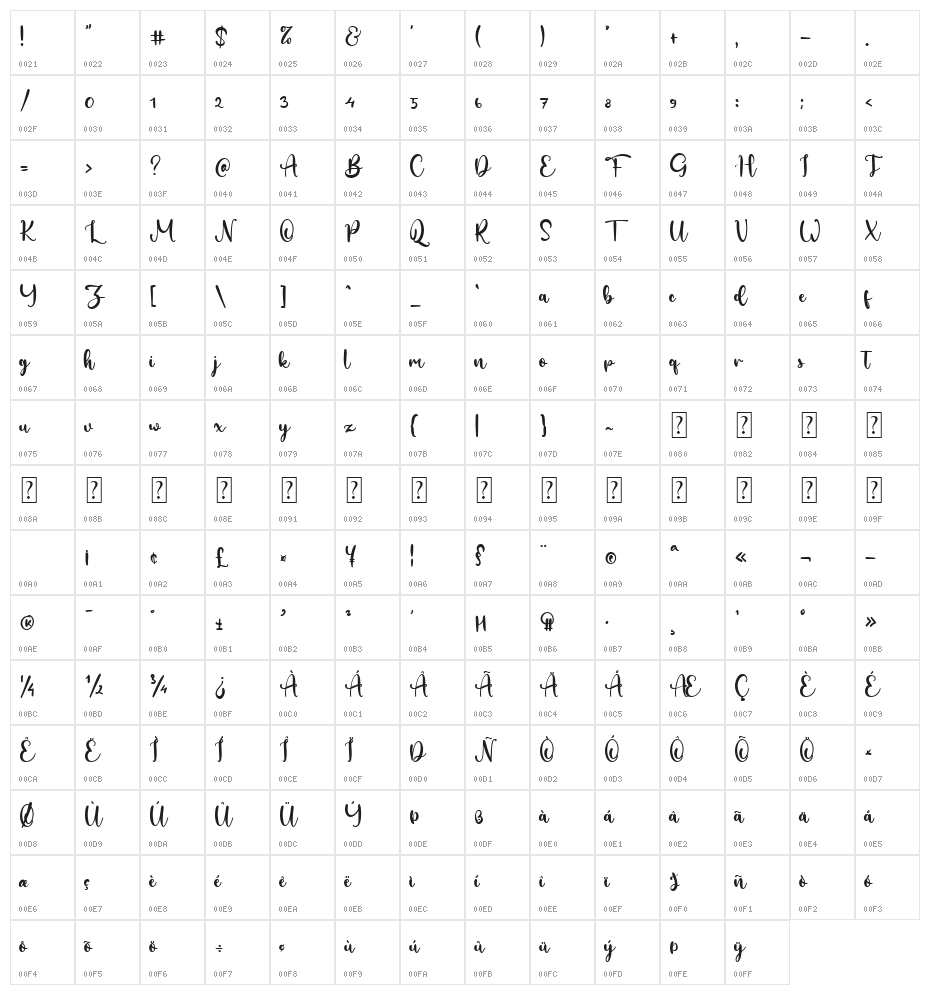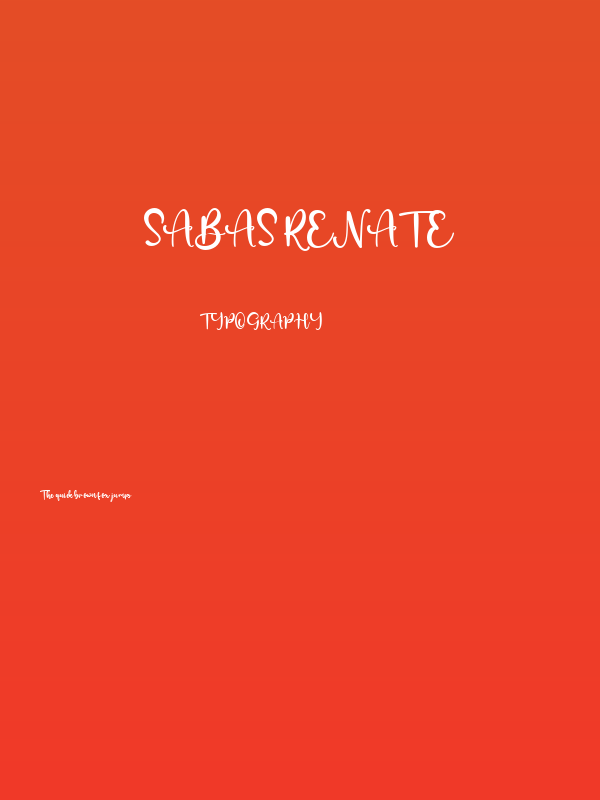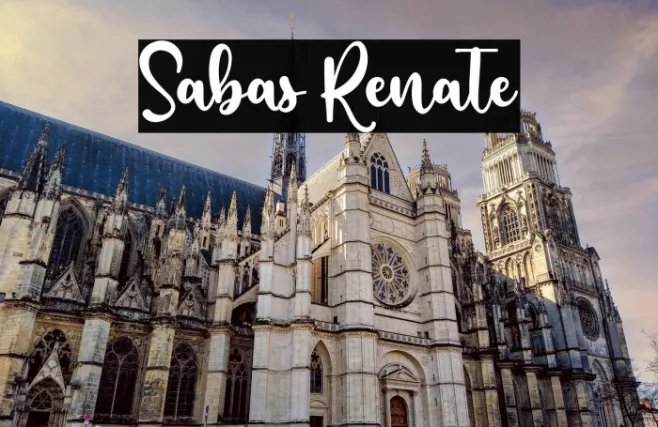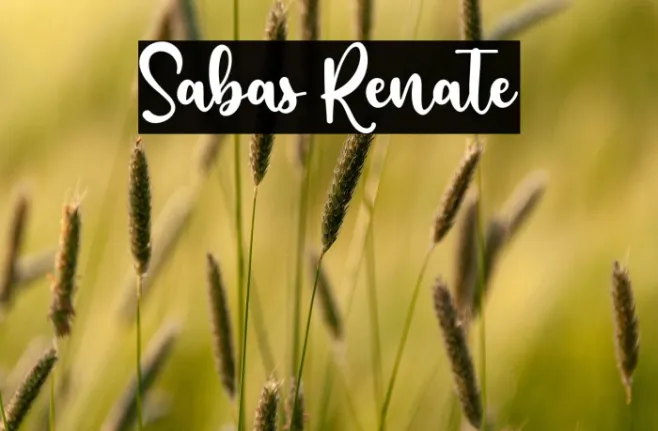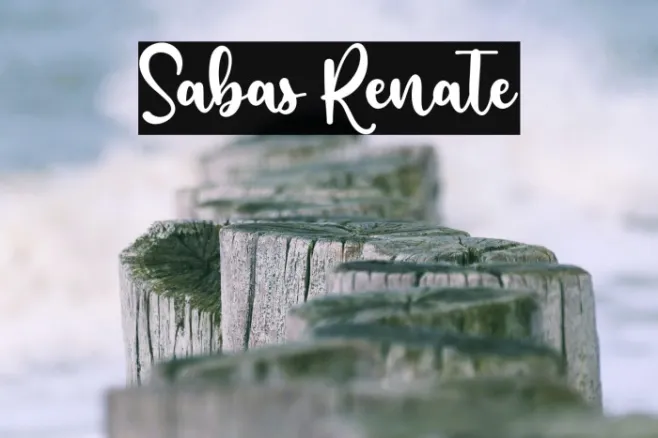
Sabas Renate Font
Sabas Renate Description
This font exudes a playful and elegant script style, characterized by its flowing, cursive letterforms. The uppercase letters are bold and expressive, with sweeping curves and loops that give a sense of movement and grace. The lowercase letters maintain a consistent style, with a slightly more compact form that complements the uppercase. The numerals are clear and legible, designed to match the overall aesthetic without sacrificing readability. Special characters are thoughtfully integrated, maintaining the font's cohesive look. This font's design is perfect for projects that require a touch of sophistication and creativity.